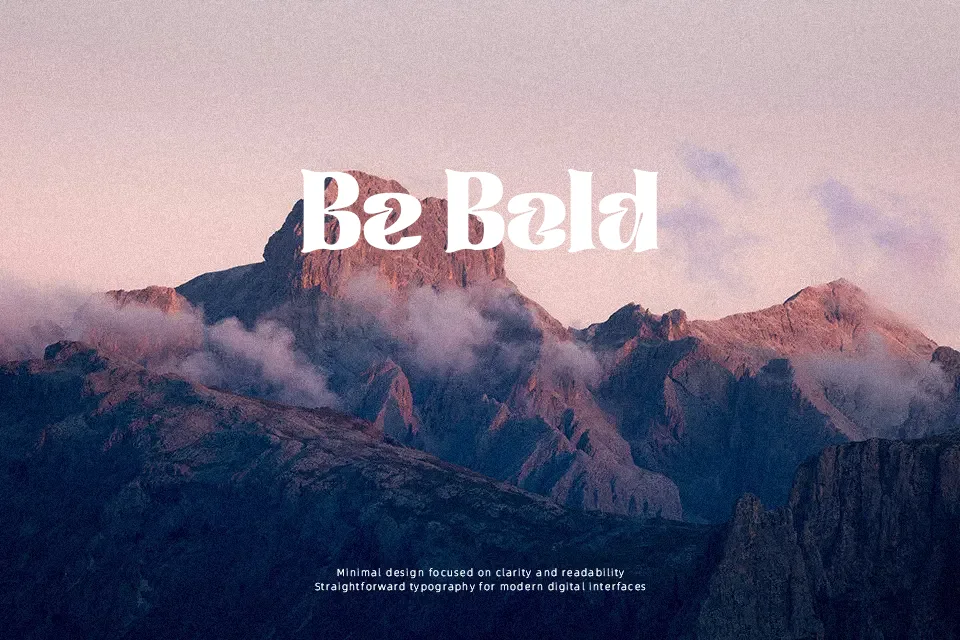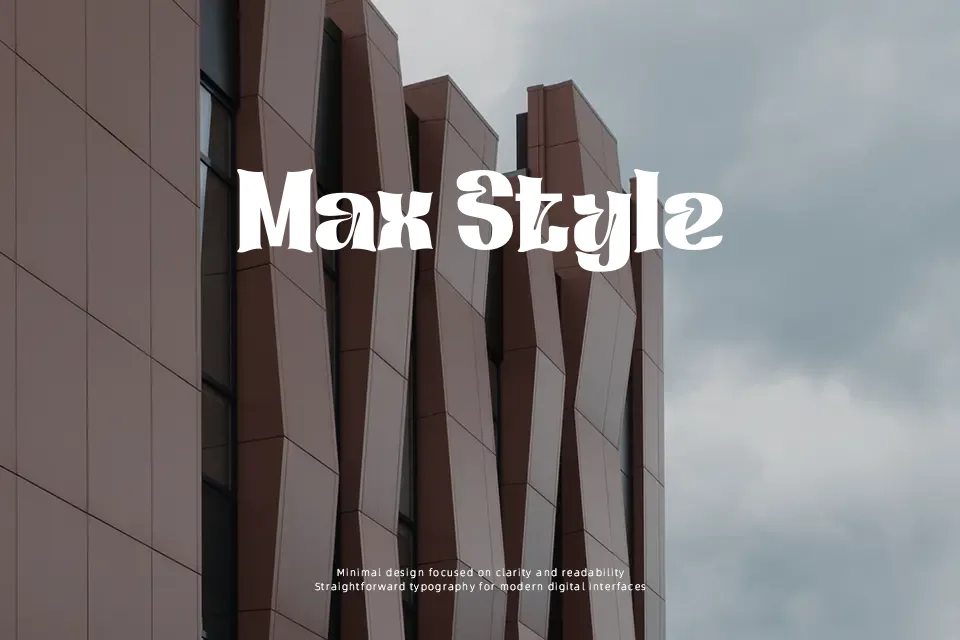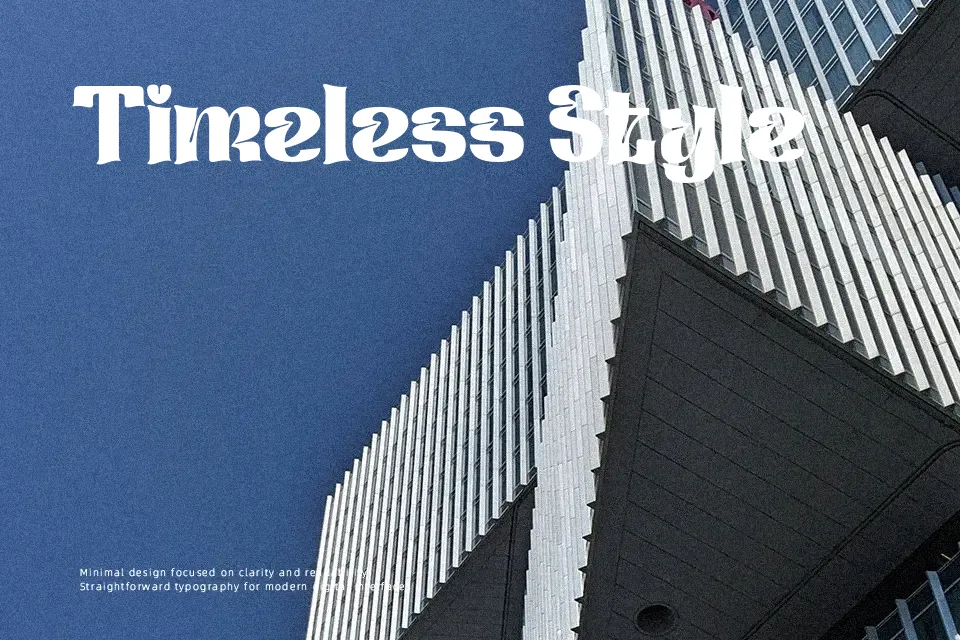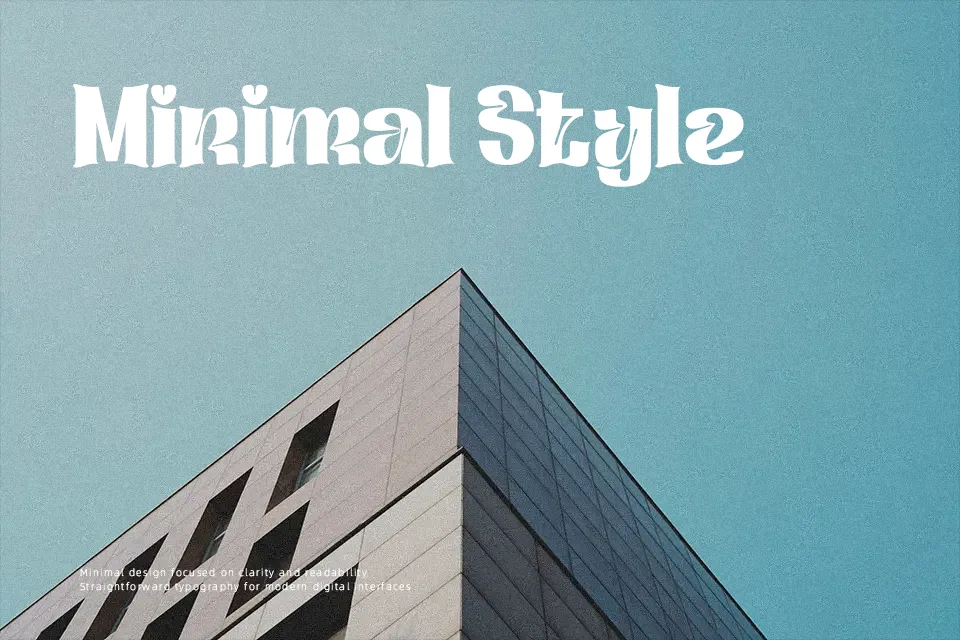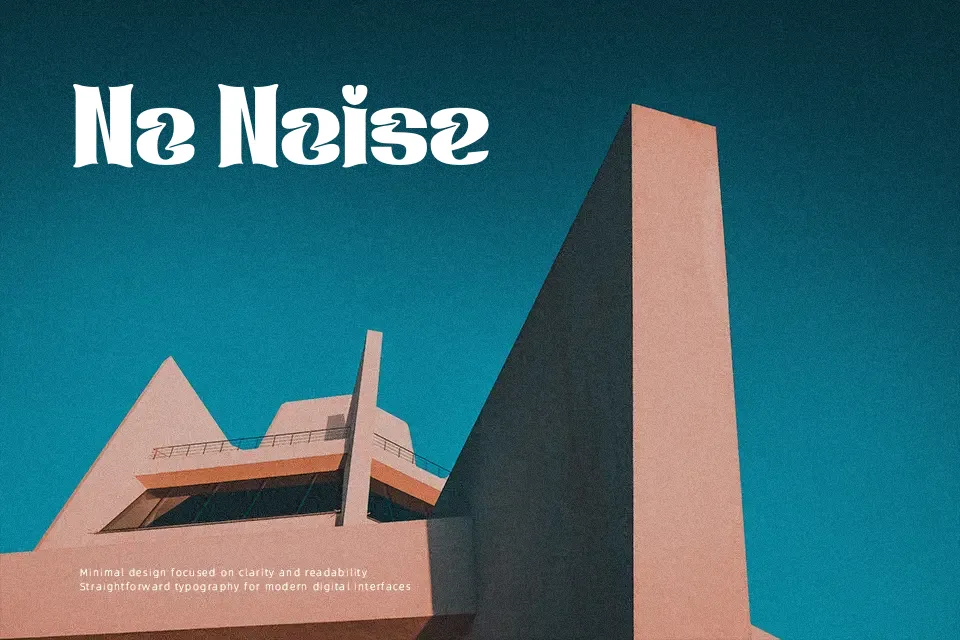
Qafidut Font
Designed by twinletter
Qafidut Font makes a striking impression with its heavily weighted, curvaceous strokes that immediately evoke a nostalgic retro atmosphere. The letterforms feature tight spacing and exaggerated proportions, giving the typeface a playful yet substantial presence. Thick stems and rounded terminals ensure high visibility in large display formats, making the design particularly effective for eye-catching apparel graphics or bold event headlines. The dense visual rhythm helps maintain clarity in larger typography, though the heavy forms reduce comfort during extended reading. Because of its complex decorative curves and substantial weight, this groovy typeface becomes less effective at smaller sizes and should be avoided for continuous paragraph text.
vintage product packaging
apparel graphics
bold event headlines
technical manuals
Perfect for fashion, headline, and music, with a bold and decorative style.